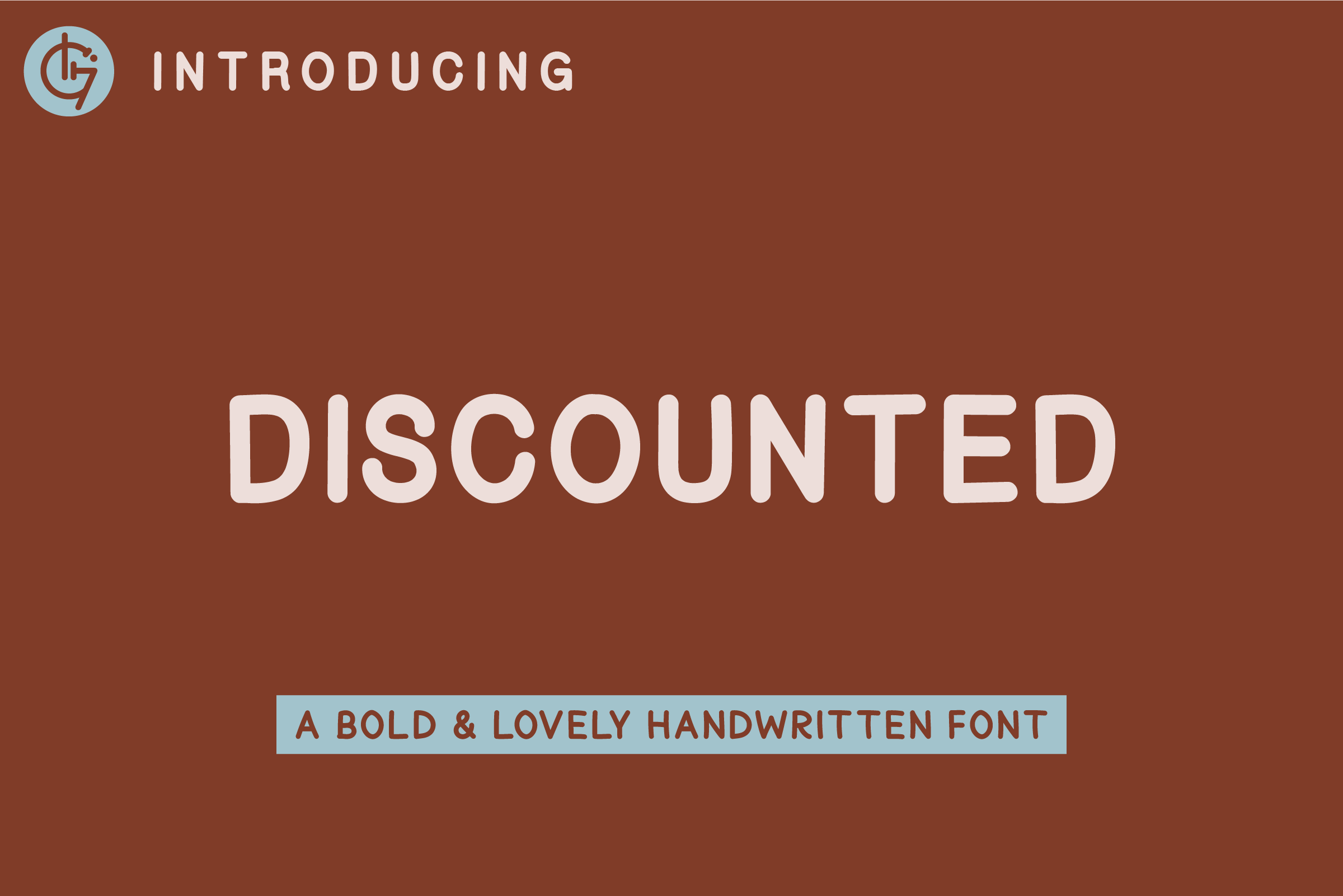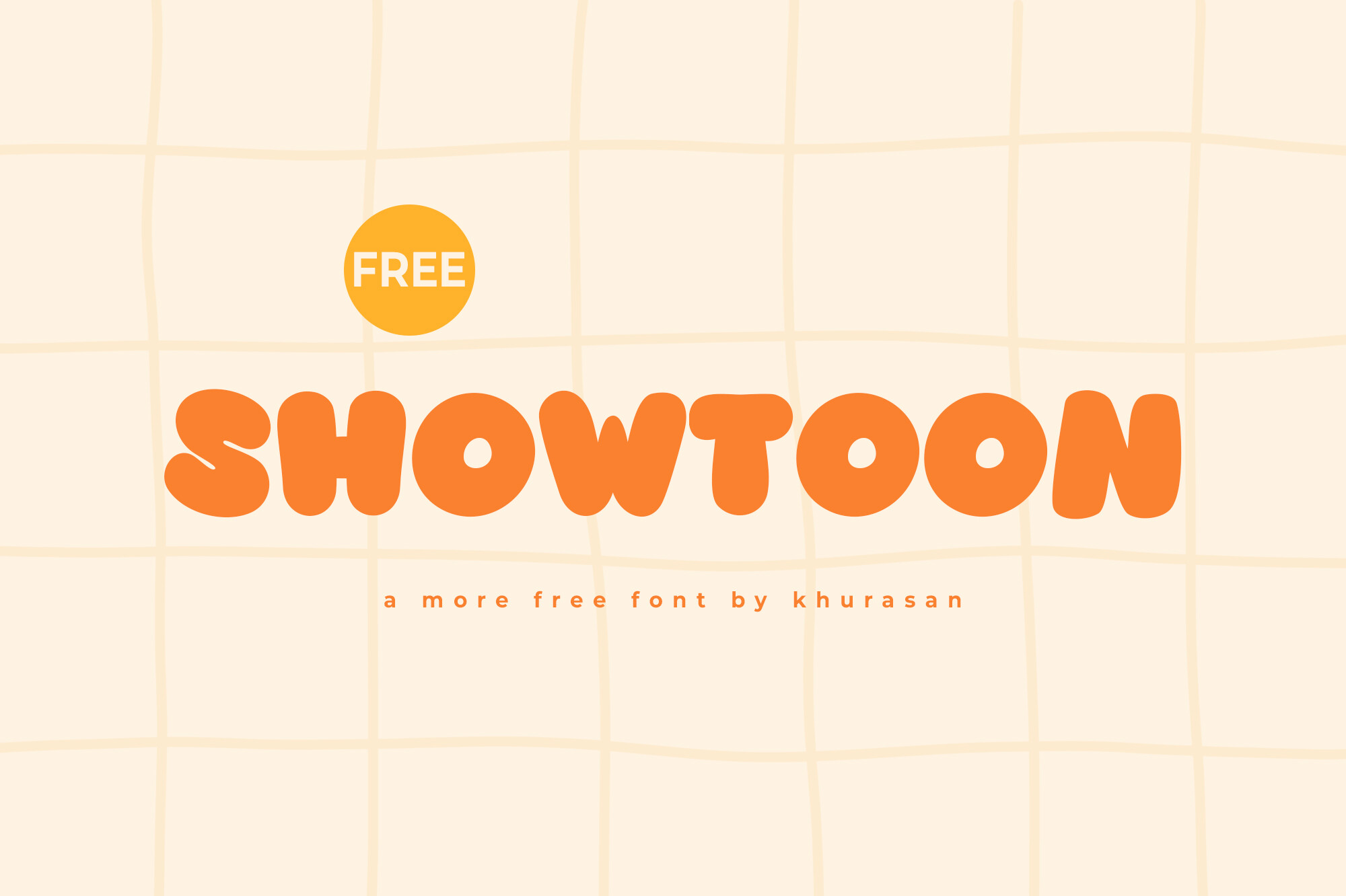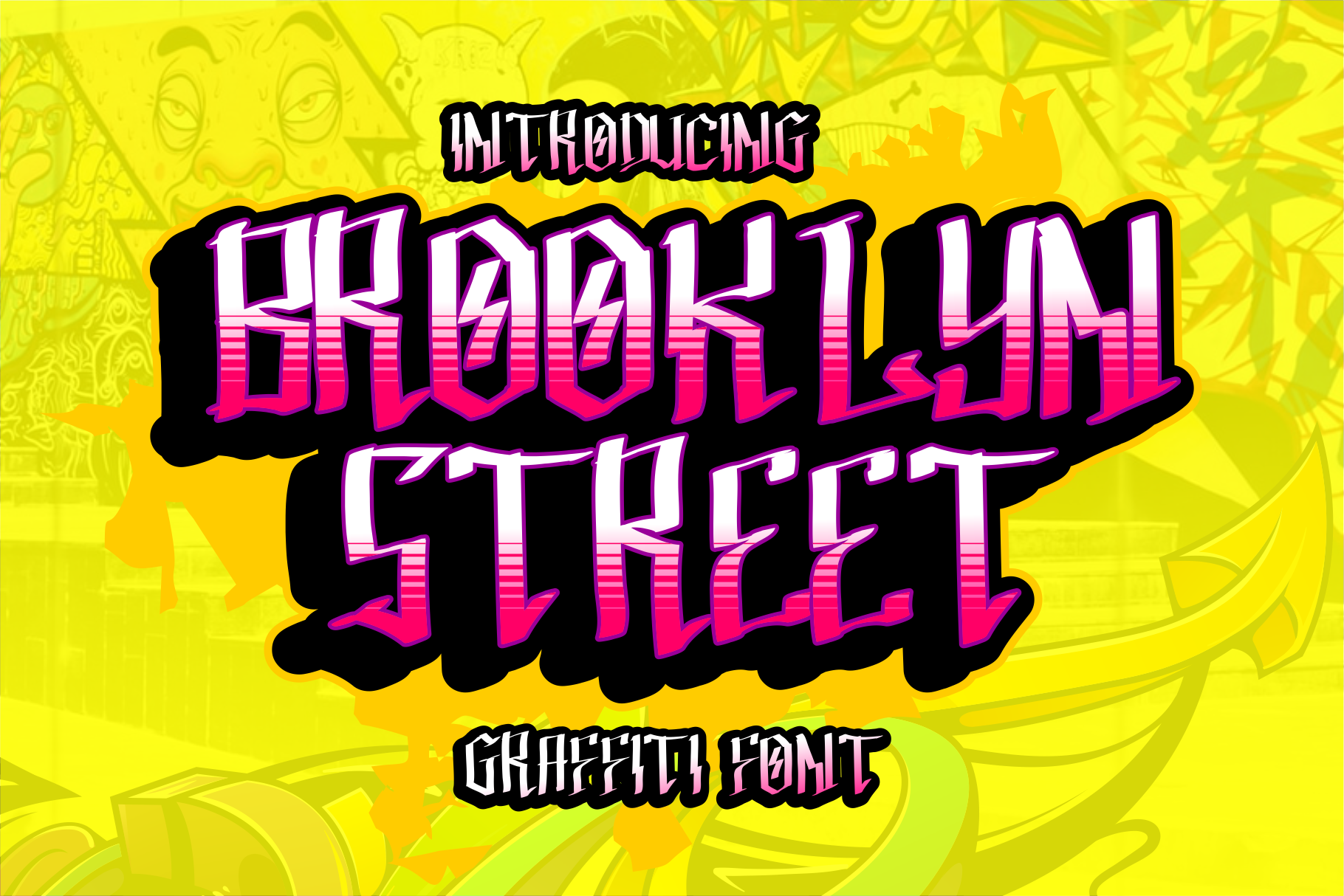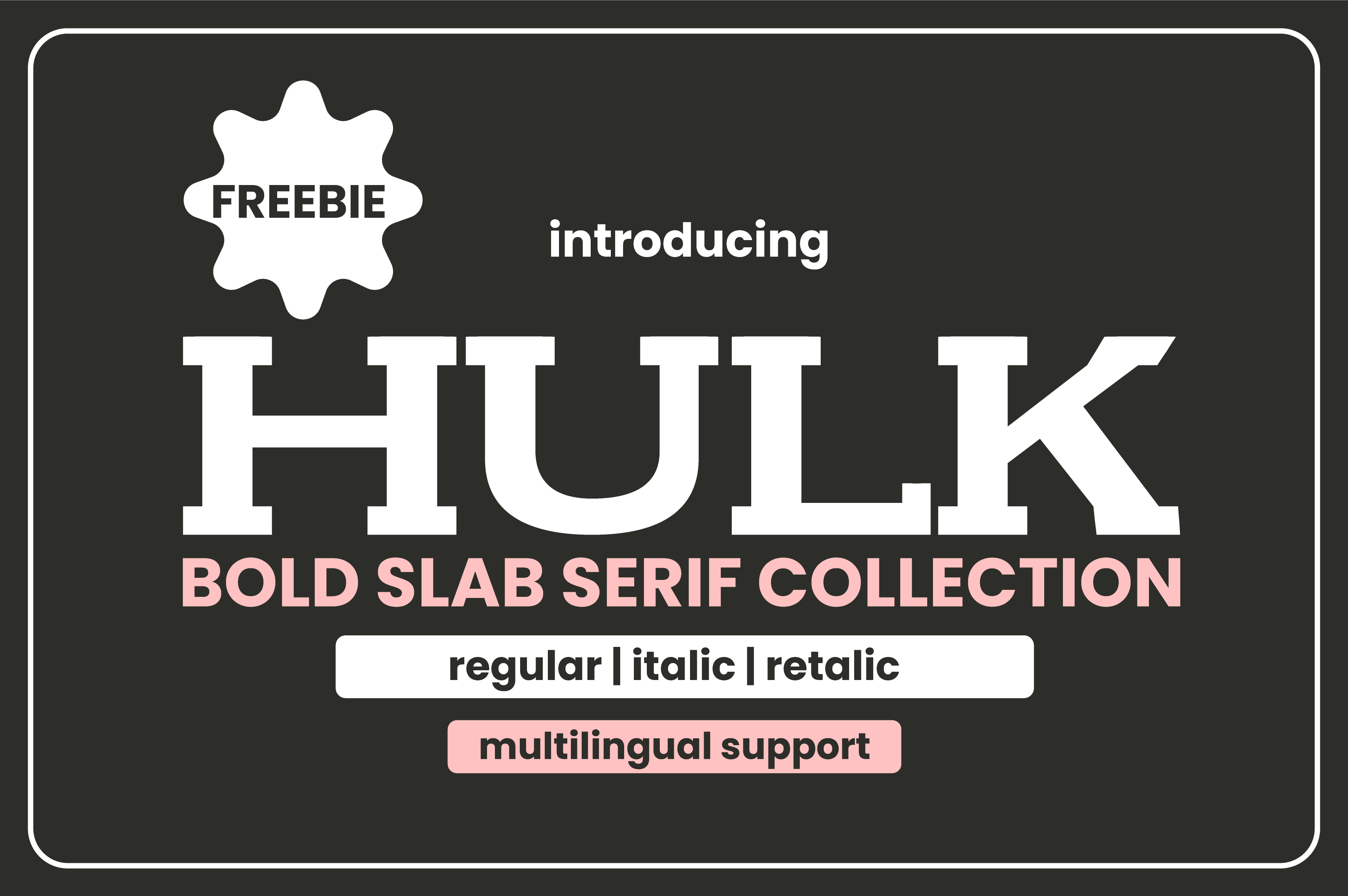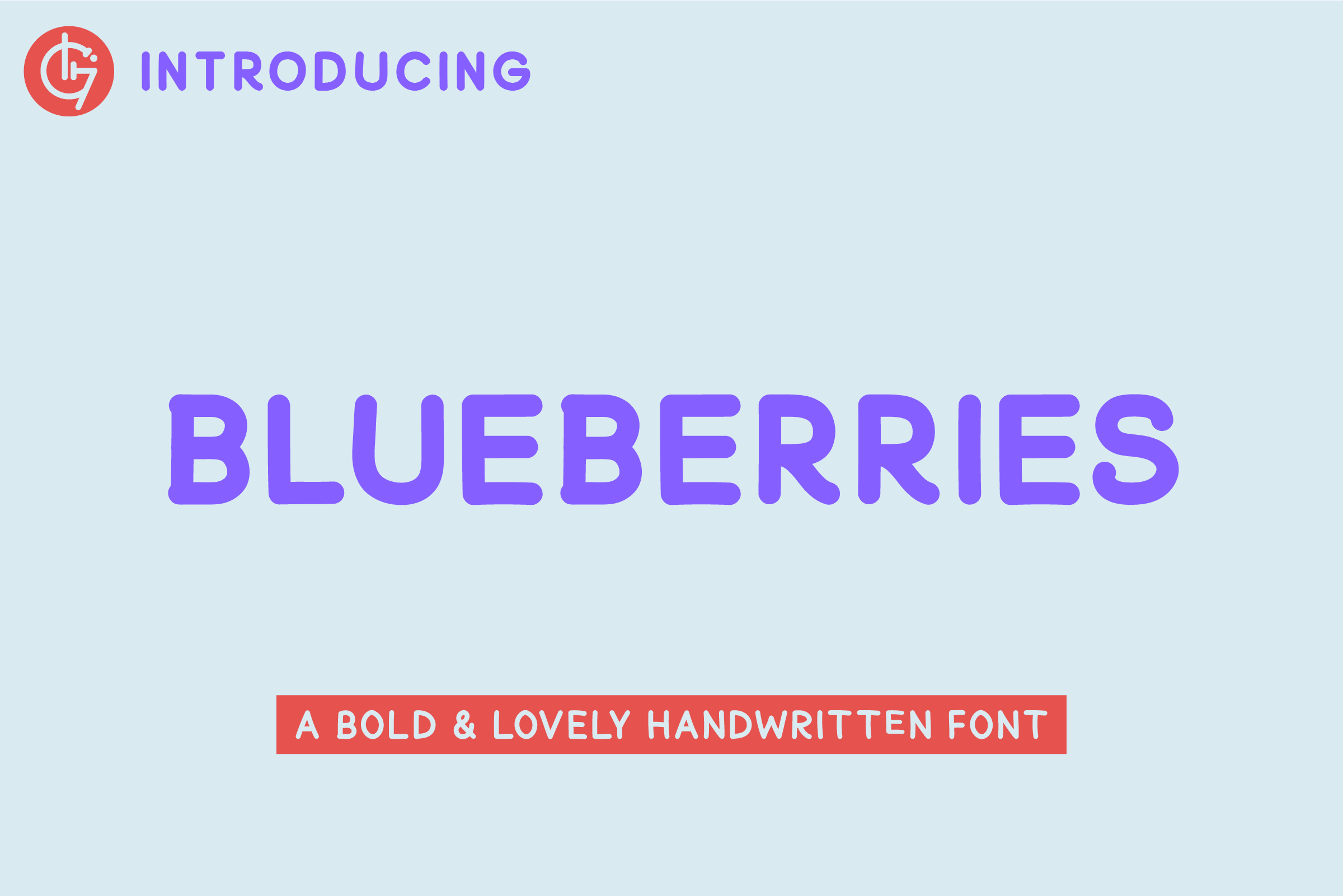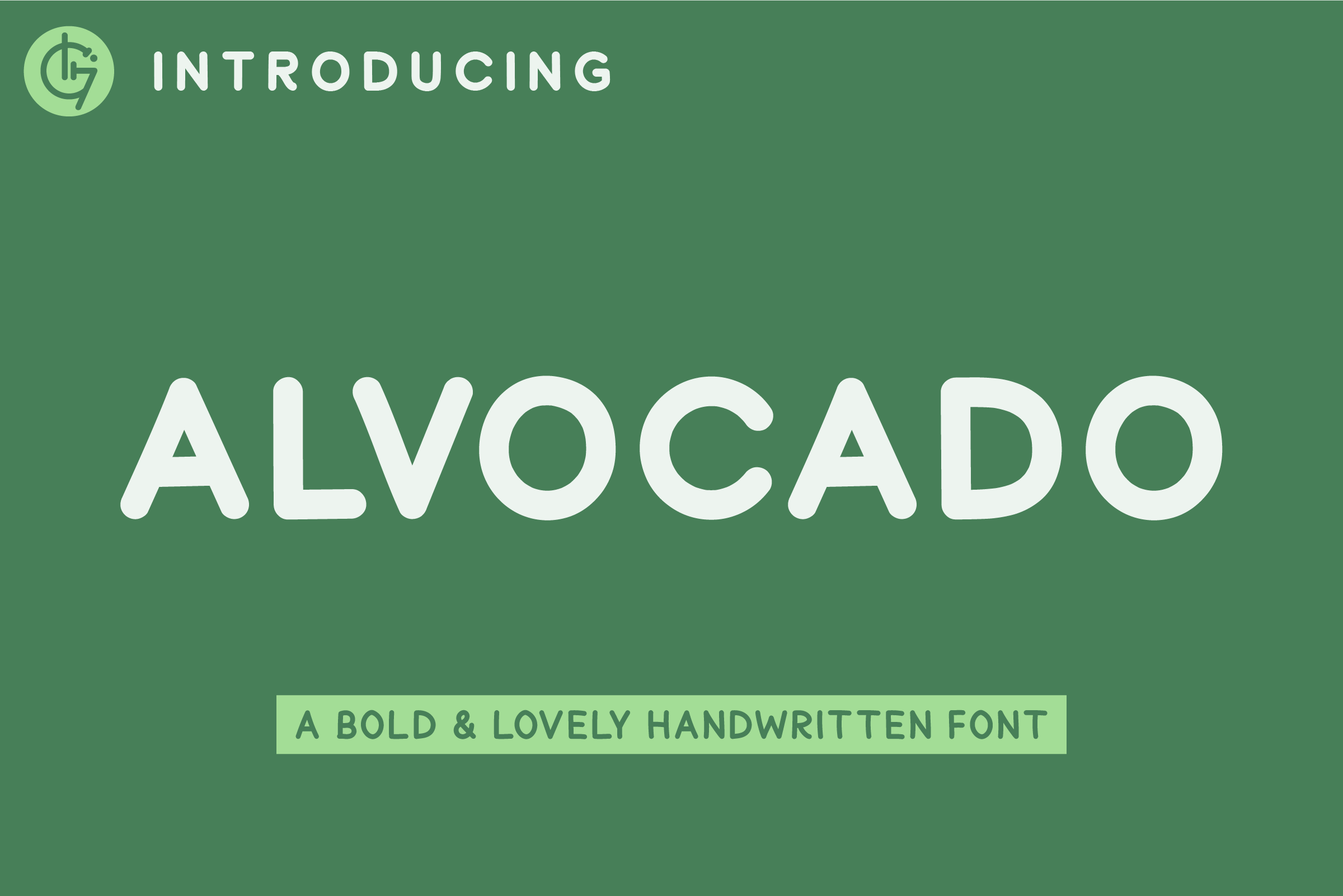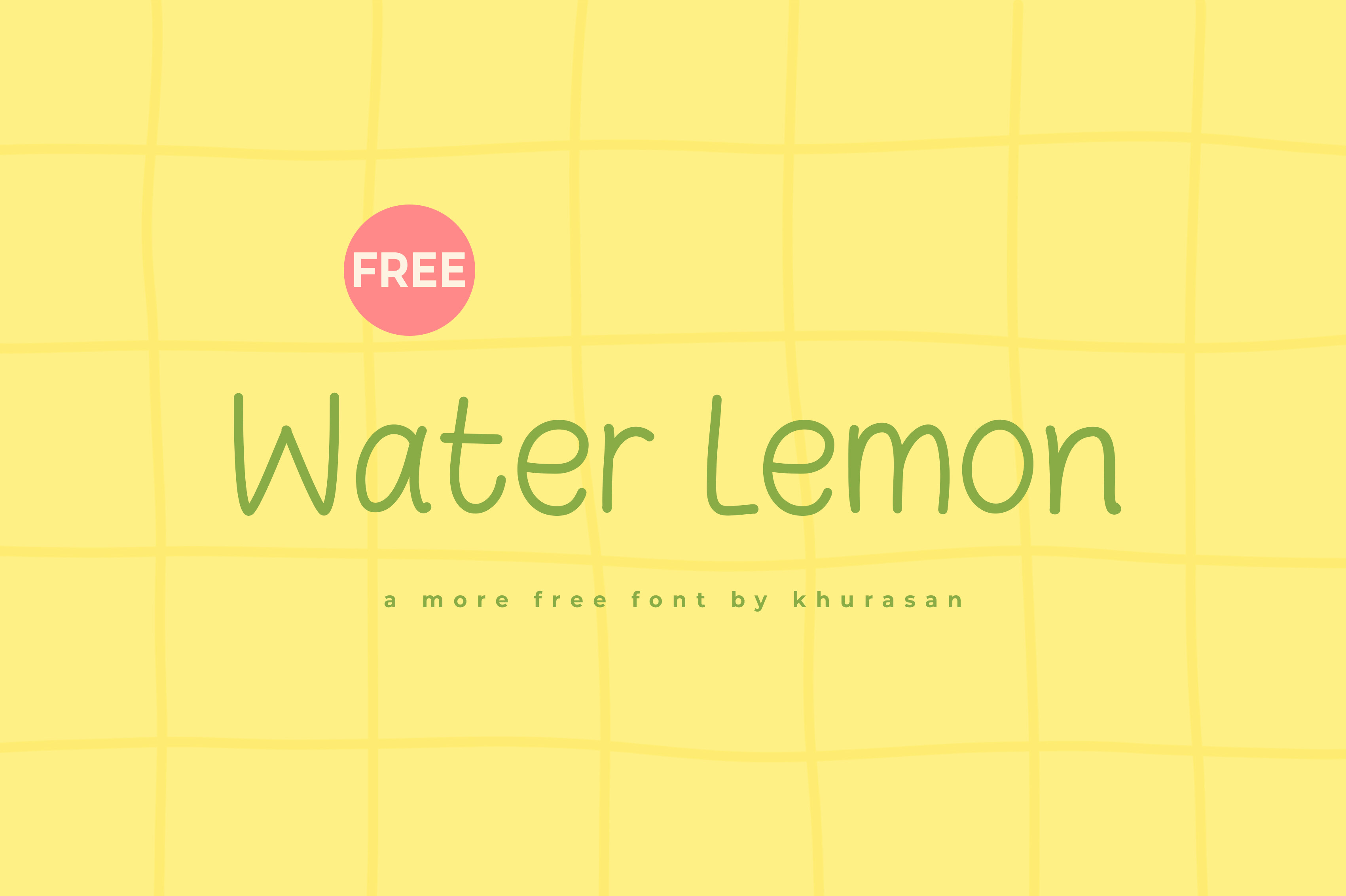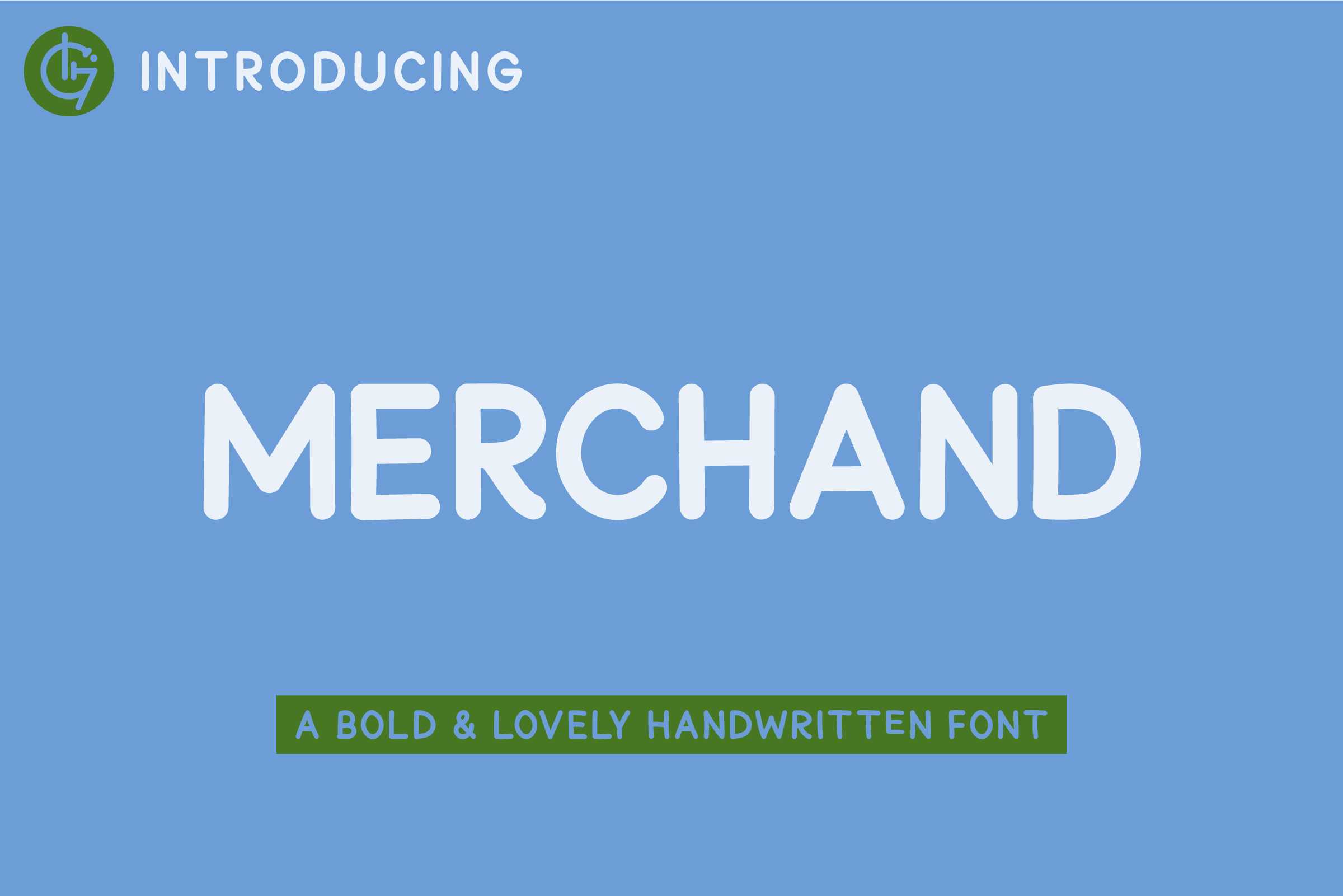
Welcome to this week's Free Fonts Friday, where we unveil an exciting collection of free fonts available for commercial use. In this edition, we bring you a diverse selection of typefaces that are perfect for elevating your design projects. From the sleek and modern Quadria to the charming handwritten styles of Discounted and Merchand, each font offers a unique aesthetic to suit a variety of creative needs. Explore playful options like Showtoon and Water Lemon, or make a bold statement with the expressive Brooklyn Street and the robust Hulk. Whether you’re designing for branding, packaging, or social media, these fonts will add character and professionalism to your work.
Quadria
Quadria is a sophisticated geometric sans serif font that embodies modern elegance. Its clean lines and balanced letterforms make it an excellent choice for various applications, including branding, editorial design, and web projects. With both regular and italic styles, it accommodates multilingual needs, making it a versatile option for designers aiming for a refined, contemporary aesthetic. Quadria's subtle creative edge allows it to shine in minimalist logos and professional layouts alike, ensuring your design stands out with grace and clarity.
Discounted
Discounted is a handwritten font that effortlessly blends boldness with a personal touch. Its distinct style is perfect for various design applications, including branding, packaging, and social media. This font radiates warmth and authenticity, making it an excellent choice for projects aiming for a professional yet approachable vibe. The strong presence of Discounted ensures your message stands out, whether used in print or digital formats. Embrace this charming typeface to enrich your designs with character and flair.
Showtoon
Showtoon is an adorable modern font that adds a playful touch to any design. Ideal for a variety of projects including posters, logos, magazines, and book covers, this font's charm lies in its versatility. It can seamlessly adapt to numerous creative ideas, making your designs pop with personality. Whether you're aiming for a cute aesthetic or a vibrant vibe, Showtoon ensures your work stands out and leaves a memorable impression. Enhance your projects with this delightful typeface and unleash your creativity.
Genico
Genico is a striking sans serif font that combines modern aesthetics with a charming twist. It features alternative styles that allow for creative flexibility, and the added extrude style enhances its visual appeal. This font is perfect for designers looking to create contemporary designs that maintain an engaging and interesting style. Genico’s versatility makes it suitable for various projects, ensuring that your designs capture attention while delivering a fresh and modern look. Make this font a staple in your collection and watch your ideas come to life.
Brooklyn Street
Brooklyn Street is an expressive graffiti-style font that captures the vibrant essence of urban culture. Its bold strokes and irregular letterforms evoke the raw energy of street art, making it an ideal choice for designs aiming for a dynamic and edgy aesthetic. This font's authenticity reflects the spontaneity of graffiti found in cityscapes, perfect for posters, album covers, and streetwear branding. With its balanced chaos, Brooklyn Street offers both style and legibility, ensuring your message resonates clearly while maintaining a rebellious flair. Let your designs make a statement with this captivating typeface.
Hulk
Hulk is a robust slab serif font collection that commands attention with its bold and impactful design. Available in three styles—Regular, Italic, and Retalic—this dynamic typeface is ideal for creating striking headlines, influential titles, and memorable logos. Its thick strokes provide strong visibility, making it suitable for various sectors like finance, technology, and fashion, as well as vintage themes. Hulk’s authoritative presence adds a layer of confidence to any design, ensuring your message stands out with a modern yet powerful aesthetic. This font is an essential tool for designers looking to make a significant impression.
Blueberries
Blueberries is a delightful handwritten font that combines a strong and bold presence with a personal charm. Its unique style makes it perfect for various applications, including branding, packaging, and social media. This font adds warmth and authenticity to your designs, creating a friendly and approachable aesthetic. Whether you're working on print materials or digital content, Blueberries ensures your message is delivered with a touch of personality. Elevate your projects with this versatile font, making them stand out with its inviting character.
Alvocado
Alvocado is a charming handwritten font that exudes a strong and bold presence combined with a delightful personal touch. This font is ideal for branding, packaging, social media, and print applications. Its unique style adds a warm and inviting feel to your designs, making them both professional and approachable. Alvocado's versatility ensures that it fits seamlessly into various creative projects, enhancing their overall aesthetic. Elevate your design work with this friendly typeface that radiates character and authenticity.
Water Lemon
Water Lemon is a delightful and modern handwriting font that brings a playful vibe to your designs. Perfect for a variety of applications, including posters, logos, and book covers, its charming character makes it versatile and appealing. This font shines in creative projects, allowing your ideas to stand out with its unique flair. Whether you’re looking to evoke a sense of fun or creativity, Water Lemon is a fantastic choice for adding personality to your work. Embrace its charm and see how it enhances your designs.